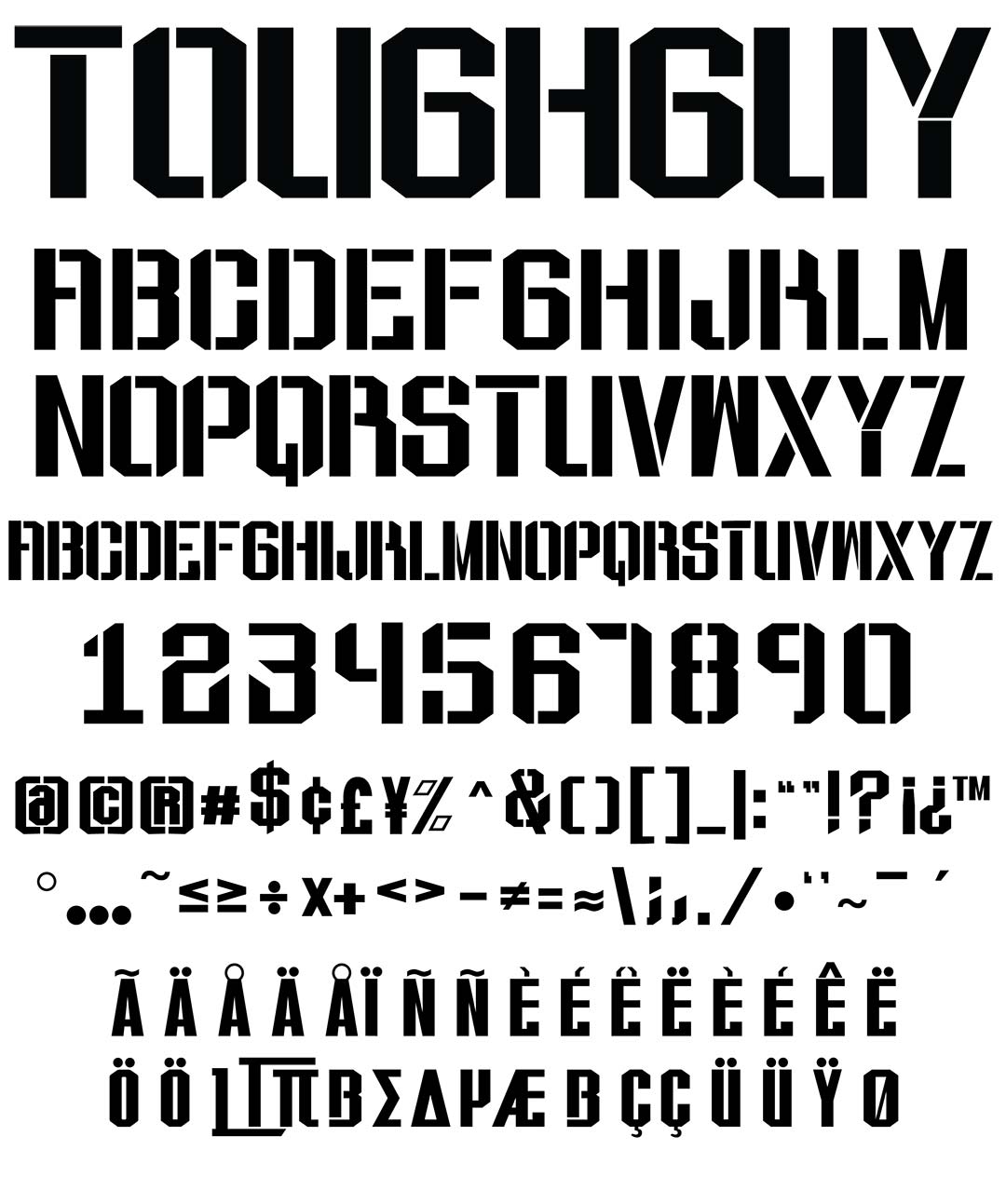
ToughGuy Free is a bold mechanical typeface. This high impact font was built for a strong & tough appearance with a street feel. This free version includes the ToughGuy Stencil style from the full, 7 font ToughGuy family. This style includes about 160 characters.